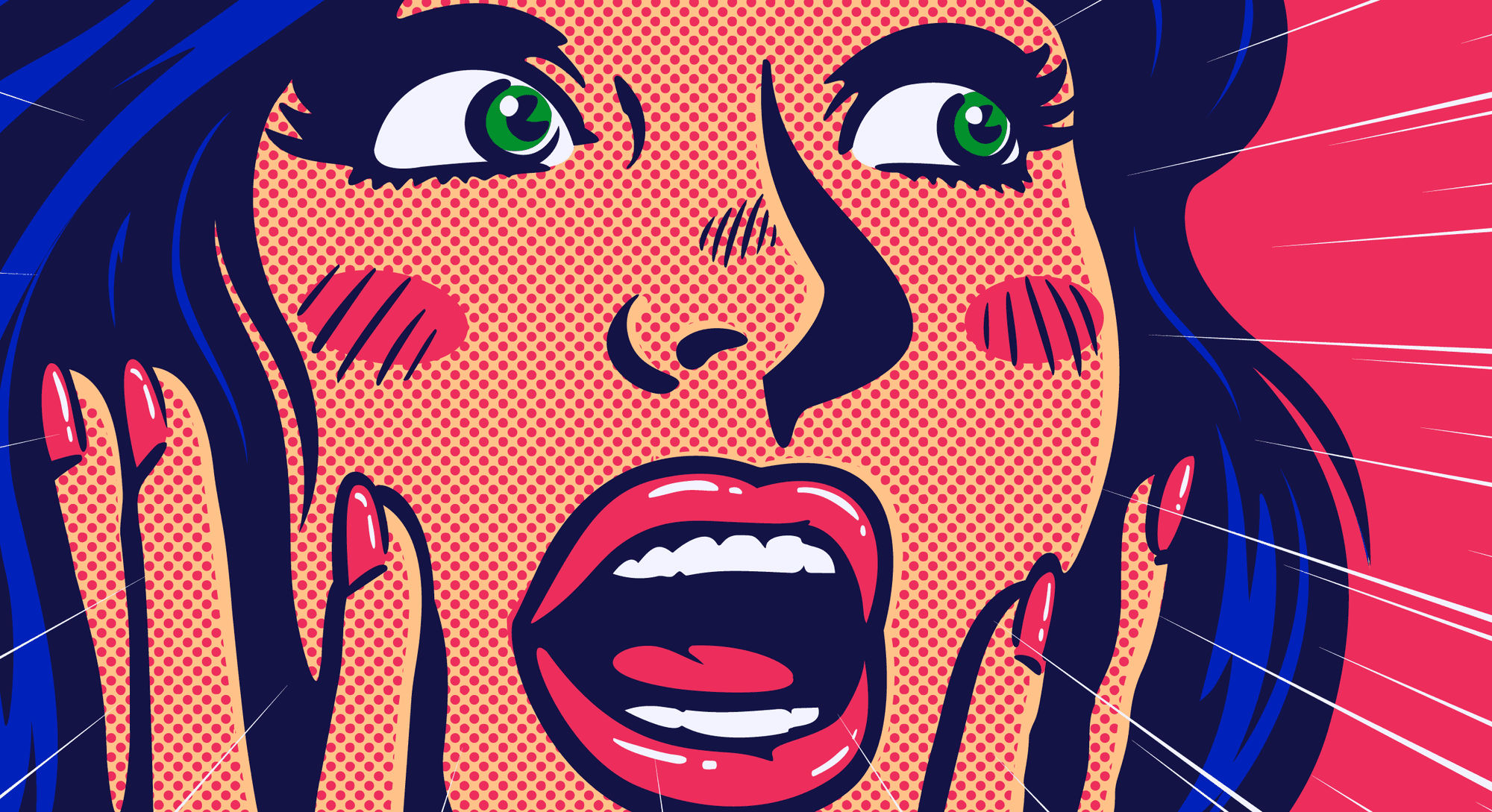
Modern retro graphic design is all about blending the best of the past with the sleek aesthetics of today. By combining modern styles with vintage influences, it creates a unique, timeless design that feels both nostalgic and contemporary.
We’ve compiled everything you should know about retro graphic design, from the definition, pros, cons, and best practices.
Key Takeaways
- Modern retro design balances vintage elements with modern design to create something timeless.
- The right elements of the design can elevate the whole design to deliver the meaning.
- Retro design can feel outdated if the elements aren’t carefully integrated, making it important to blend the old and new cohesively.
- Pop Art is a prime example of modern retro design, successfully merging bold visuals with nostalgic references while keeping the style fresh and relevant.
What is Modern Retro Graphic Design?
Retro art is a style that focuses on recreating designs from the past. It looks back at different time periods, mainly from the 19th and 20th centuries, though the most common retro styles come from the 1920s to the 1970s.
Retro art doesn’t need to be an exact copy of the past. Instead, it picks out certain elements from older designs and mixes them with modern touches. Today, “retro style” is often used to describe new things that have an old-school feel. The word “retro” comes from the Latin term meaning ‘past times.’
Simply put, modern retro graphic design is all about bringing back the look and feel of older decades. This style is great for creating a sense of nostalgia, especially from the 60s and 70s. However, retro design can also include styles from other decades, like the bold patterns of the 1920s or the colorful, quirky designs of the 90s.
Pros of Using Modern Retro Graphic Design
Using modern retro design in your work comes with a lot of benefits, here are just a few reasons why it’s a great choice.
1. Using the Nostalgia to Enhance the Visual
The retro design offers a timeless quality that outlasts trends, giving a lasting appeal to any project. When combined with modern techniques and technology, retro elements help create fresh and unique visuals that stand out in today’s crowded digital world.
By embracing retro design, graphic designers can blend the past with the present, offering a nostalgic touch while engaging today’s audience with something new and exciting.
2. Boosting User Engagement
Retro design grabs attention instantly with bold colors, fun patterns, and classic typography. It pulls users in, making the browsing experience more lively and exciting. For example, a retro gaming website featuring pixel art and arcade-style designs can take users on a nostalgic journey while keeping them hooked.
3. Stand Out in the Minimalist Era
In a world dominated by minimalist designs, retro aesthetics provide a bold and exciting alternative, giving brands the chance to stand out. Whether it’s an eCommerce site or a creative agency, these unique elements help create a distinctive identity that captures attention in today’s crowded digital space.
For designers, embracing modern retro-style graphic design not only sparks creativity but also allows for more freedom to experiment with bold colors, patterns, and nostalgic themes. As a result, your design offers a refreshing break from the simplicity of minimalism.
Cons of Using Modern Retro Graphic Design
However, before diving into retro design, there are a few drawbacks worth considering. Here is a list you should know that might make you rethink your approach.
1. Incorporating with Other Trends
Retro design elements often clash with modern aesthetics that are popular today. While retro styles bring nostalgia, their bold colors and patterns can feel out of place next to minimalist designs.
This mix of old and new can create a visual imbalance, making the retro elements stand out too much and disrupting the overall flow of a space or product. It can be challenging to make the design feel cohesive and in harmony with its surroundings.
2. Outdated Design
This can be true if the design leans too heavily on nostalgic elements without updating them to fit modern tastes. As a result, the retro style might feel more like a relic from the past rather than a contemporary choice.
3. Not Universally Appealing
Retro design isn’t always a hit with everyone. Some people may not connect with the nostalgic vibe or might find it too outdated for their tastes. This can lead to confusion or a sense of disconnection, especially for those who prefer more modern, sleek, or minimalist aesthetics.
Best Practices of Modern Retro Graphic Design
There are ways to bring retro design into the modern era and make it more appealing to today’s audience. Here are a few examples you should consider.